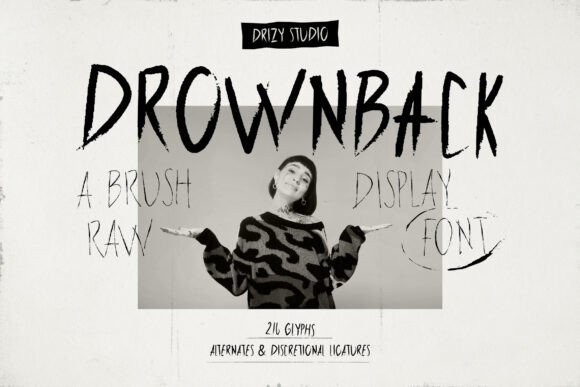
Unleash Your Emo Romance Aesthetic with the Drownback Font
Have you ever been stuck on a design project, trying to convey the intensity of your emotions through type? You’re not alone. We’ve all been there, pouring over font options, searching for the perfect match. For those who need a font that speaks to the soul, we’re excited to introduce the Drownback Font – a raw and captivating brush display font that embodies the essence of Emo Romance.
With its bold, jagged strokes and expressive hand-painted style, the Drownback Font is perfect for designers who want to add a dramatic flair to their designs. Whether it’s an album cover, event poster, or zine, this font is sure to capture the beauty in chaos. By incorporating the Drownback Font into your designs, you’ll be able to convey a sense of passion, rebellion, and vulnerability that resonates with your audience.
Drownback Font Key Features
- Font Family: Drownback Font
- Unique Characteristics: The Drownback Font features a distressed, vintage aesthetic with subtle texture and imperfections, adding a unique touch to designs.
Drownback Font Review
I recently had the chance to work with the Drownback font, and overall, I was quite impressed. ✨ Here are some things that worked well:
- Unique aesthetic**: Drownback has a distinct, hand-drawn feel that sets it apart from more generic fonts.
- High legibility**: Despite its creative design, the font remains easy to read, even at smaller font sizes.
- Good for creative projects**: Drownback’s quirky charm makes it perfect for designs that need a bit of personality.
- May not be suitable for body text**: Due to its unique design, Drownback can be overwhelming when used for large blocks of text.
- Limited language support**: I encountered some issues with non-English characters, which may limit its use in multilingual designs.
Overall, I’d say Drownback is a solid choice for designers looking to add some visual interest to their projects. Its unique aesthetic and high legibility make it a great option for creative applications, but be mindful of its limitations when choosing a font for body text or multilingual designs.
The Drownback Font is ideal for:
1. Creating unique titles and headings.
2. Adding a touch of elegance to your designs.
3. Setting the tone for a modern, creative aesthetic.